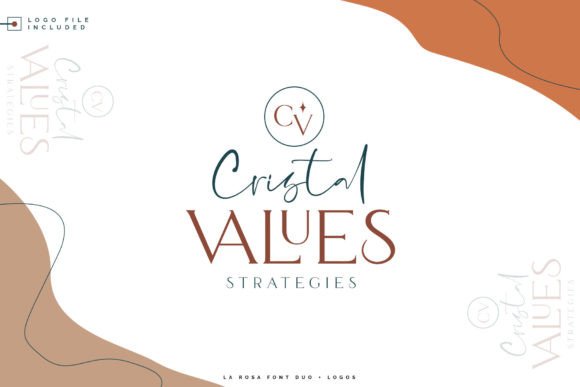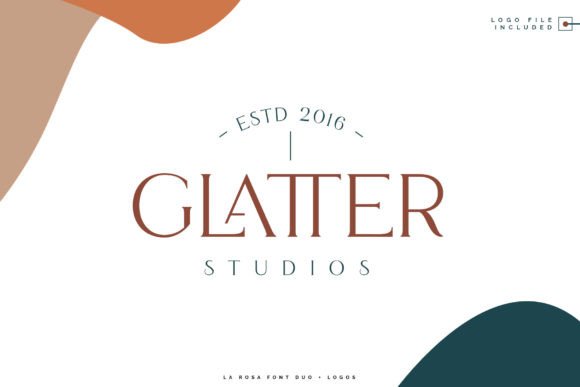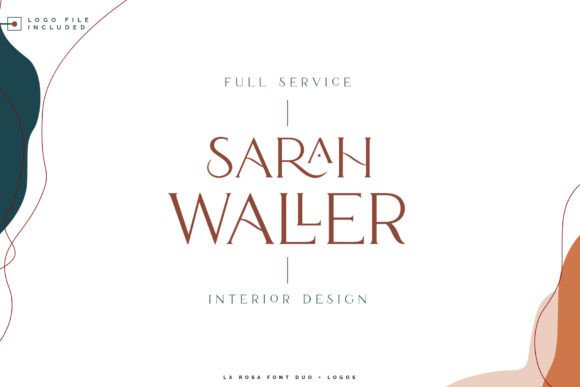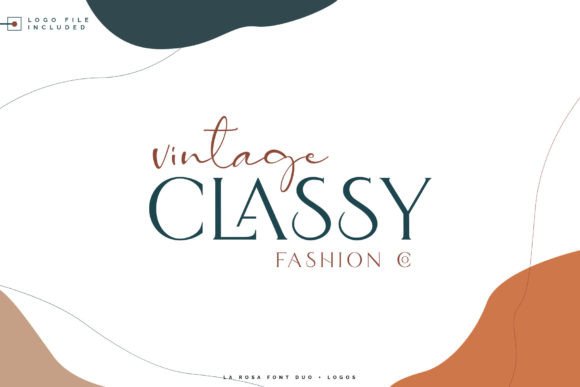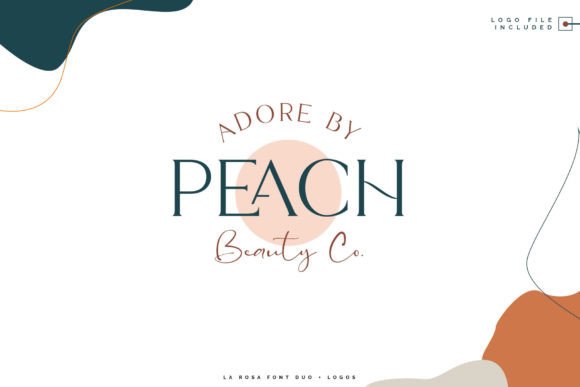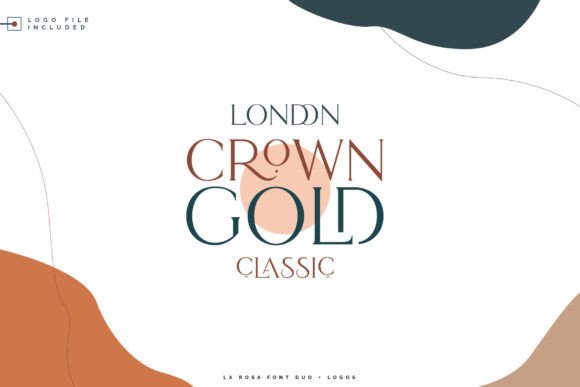
Introduction to La Rosa Duo Font
Imagine you’re working on a creative project, and you finally find the perfect font to bring your vision to life. But, what if that font wasn’t just any font, but a stunning ligature font duo that offers endless possibilities for customization? Welcome to the world of La Rosa Duo Font, a game-changing design resource that’s about to revolutionize the way you approach typography.
La Rosa Duo Font is more than just a font – it’s a design playground where creativity knows no bounds. With 30 amazing chic logo templates and a PUA-encoded system that makes it easy to access all the glyphs and ligatures, this high-quality font is a must-have for any designer looking to elevate their design projects. Whether you’re working on a personal project or a commercial client, La Rosa Duo Font is the perfect tool to help you stand out from the crowd and create truly unique designs.
Key Features of La Rosa Duo Font
- High-quality font with a unique, hand-drawn design suitable for creative projects.
- La Rosa Duo Font is available in two font styles: Regular and Bold, providing versatility for different design needs.
- Suitable for a wide range of creative projects, from branding and advertising to editorial and publishing.
Honest Review: La Rosa Duo Font
As a designer, I’m always on the lookout for high-quality fonts that can elevate my creative projects. I recently came across the La Rosa Duo Font, and I’m excited to share my honest review.
What works well: ✨ The La Rosa Duo Font is a stunning display font that features a beautiful, elegant design. The font is available for free download, which is a major bonus. I love the fact that it comes with a transparent background, making it easy to use with any design resource. The font is highly versatile and can be used for a wide range of creative projects, from wedding invitations to marketing materials.
What doesn’t work well: ⚠️ While the font is high quality, I found the font family to be a bit limited. There are only a few weights and styles available, which may not be suitable for more complex design projects. Additionally, the font may not be the best choice for body text, as it’s a bit too decorative.
Overall impression: I’m really impressed with the La Rosa Duo Font. It’s a beautiful, high-quality font that’s perfect for designers looking to add some elegance to their creative projects. While it may have some limitations, it’s still a valuable design resource that I’d recommend to anyone looking for a stylish display font.
- High-quality display font
- Perfect for creative projects like wedding invitations, marketing materials, and more
- May not be suitable for body text or more complex design projects
La Rosa Duo Font
Tips for Getting the Most Out of La Rosa Duo Font
When using La Rosa Duo Font, make sure to use a high-quality design resource to get the best results. Additionally, consider using a transparent background to give your design a clean and professional look.